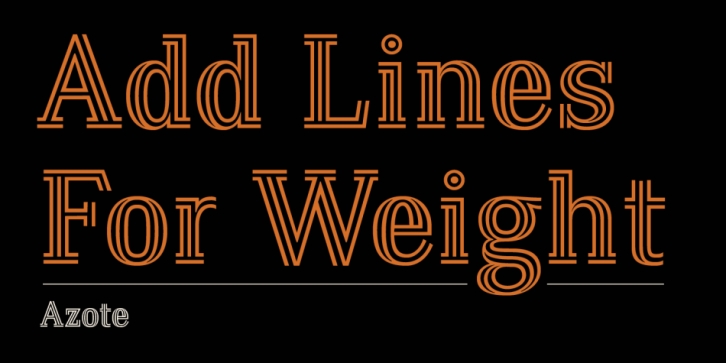
Designed by Thomas Jockin, Azote is a slab serif and display serif font family. This typeface has six styles and was published by Thomas Jockin.
One line, two lines, three lines. Inspired by the 1968 Mexican Olympics, Azote is a multiline typeface family that adds lines for weight.